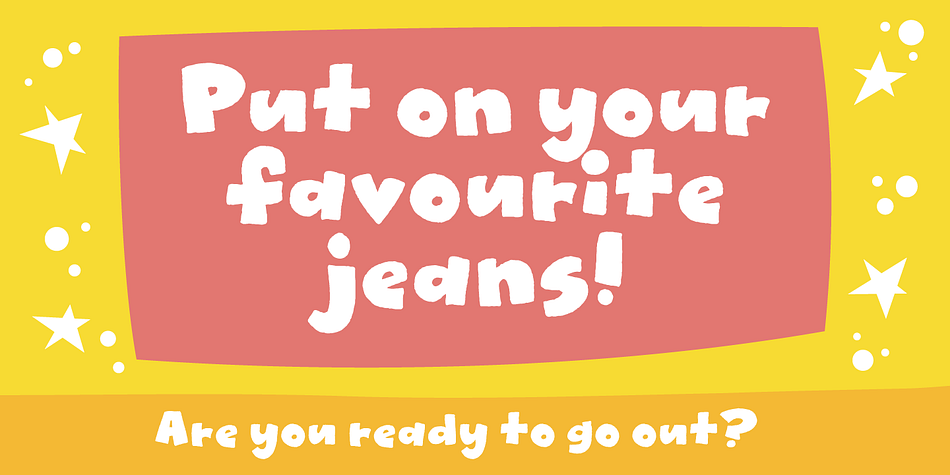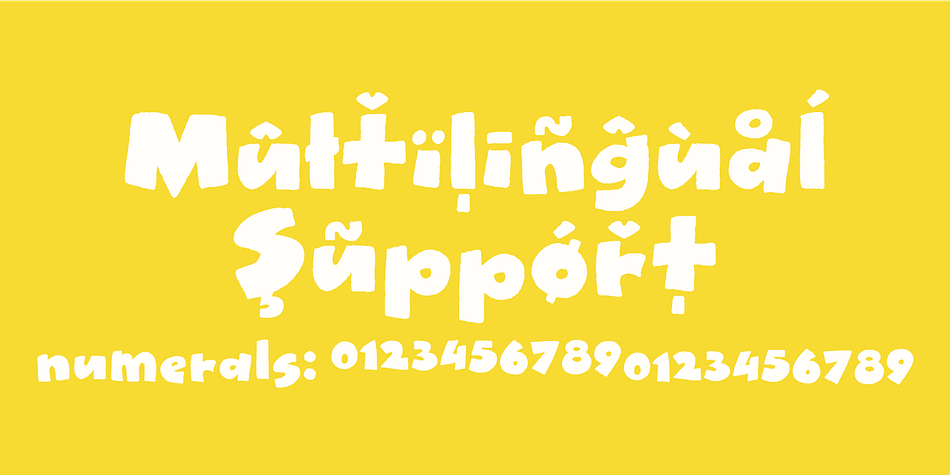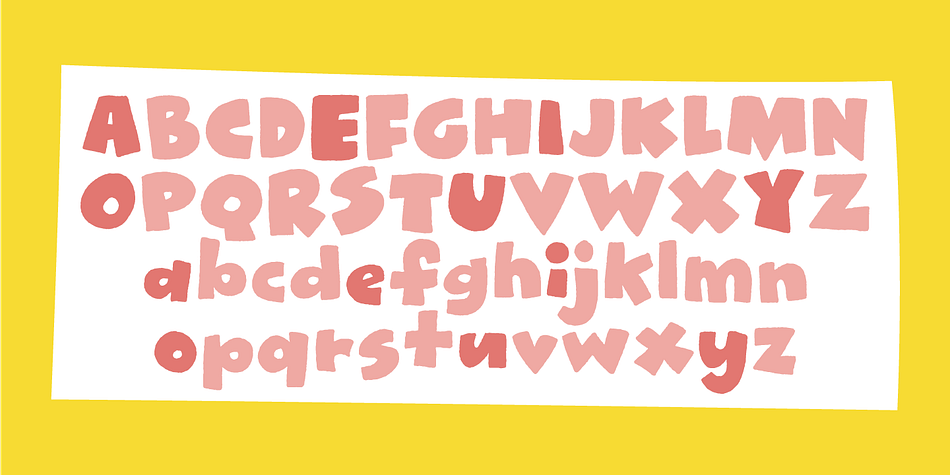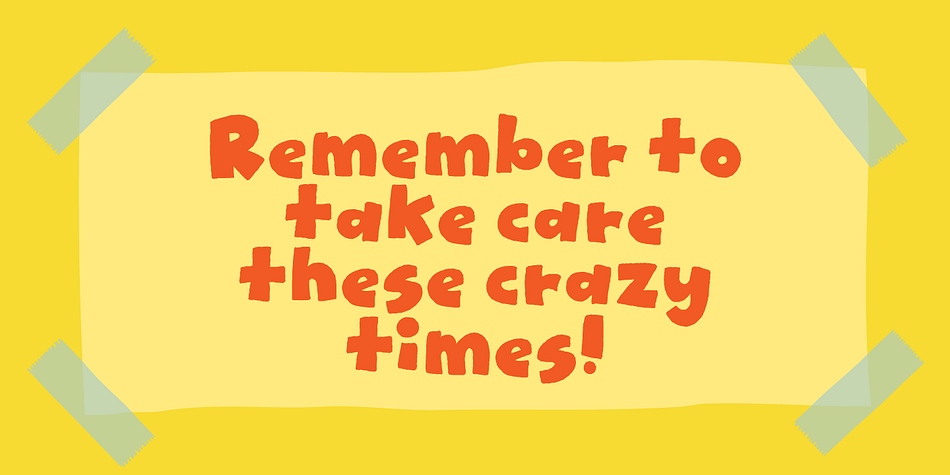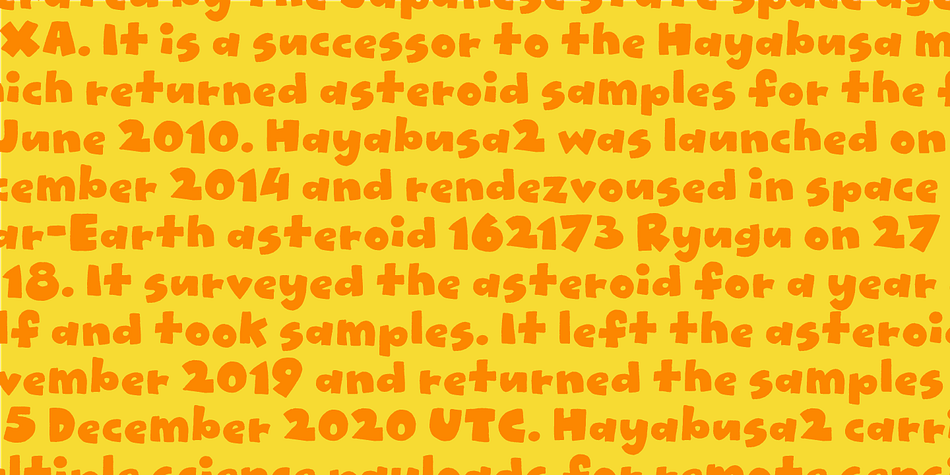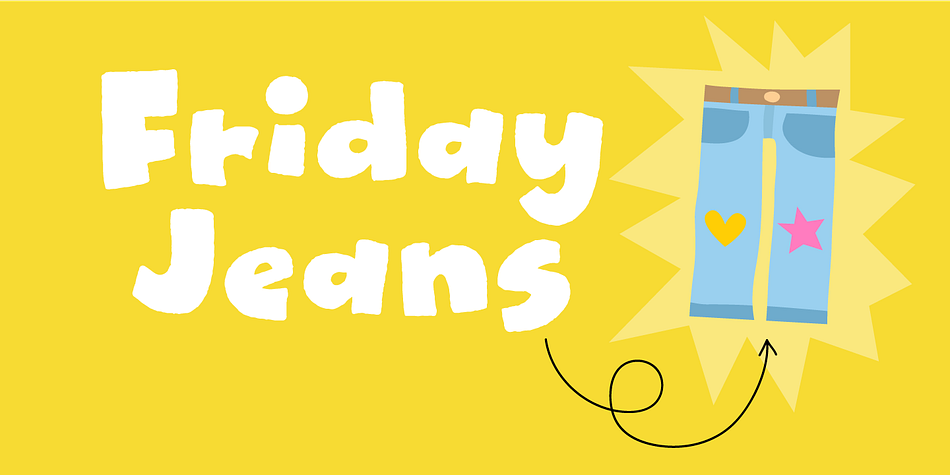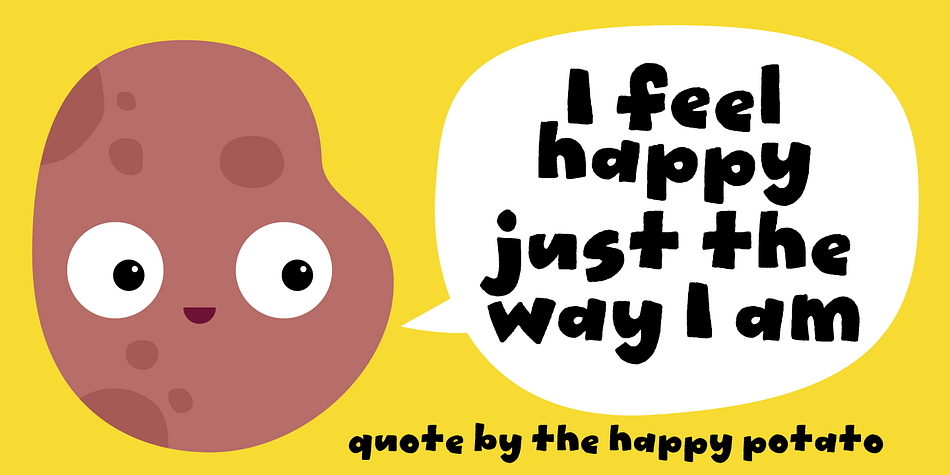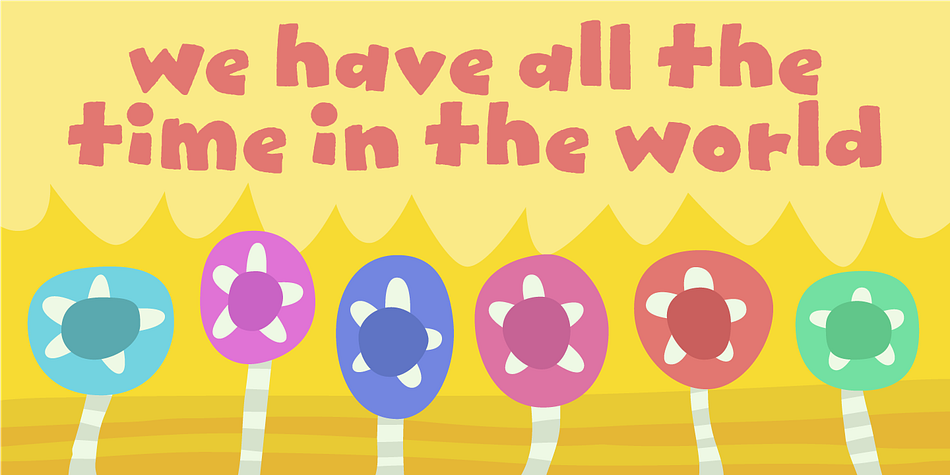
Designed by Jakob Fischer, Friday Jeans is a comic and hand display font family. This typeface has two styles and was published by Pizzadude.dk.
Got a favourite pair of jeans? I do, and I wear them every friday when it’s time to PAAAARTYYYY!
Well, that was 30-something years ago, but the memory of those jeans lives happily in my mind :)
The font, Friday Jeans is a happy-go-lucky sans font with inky edges and lively lines. Playful as a friday night out!